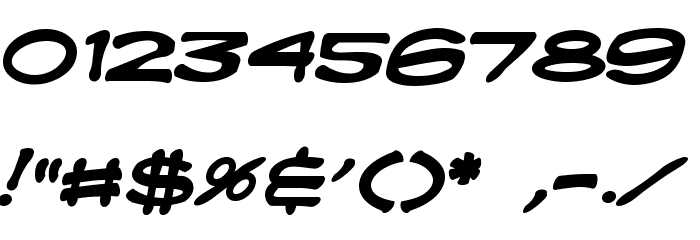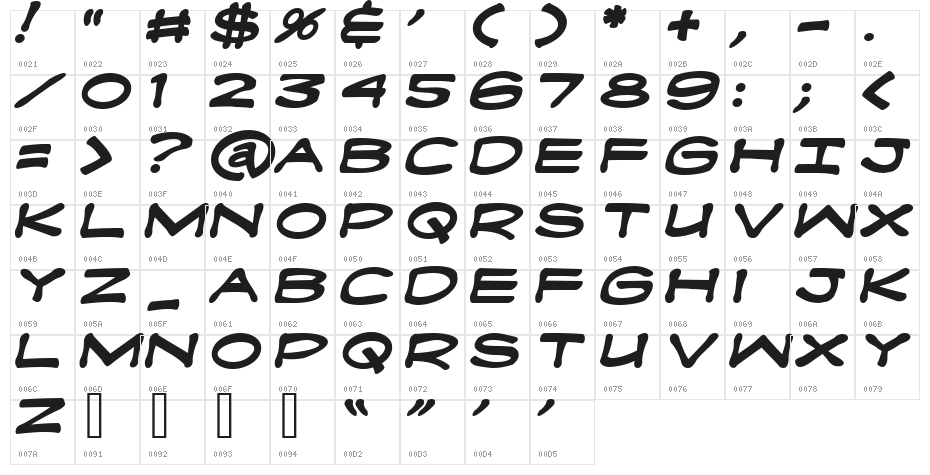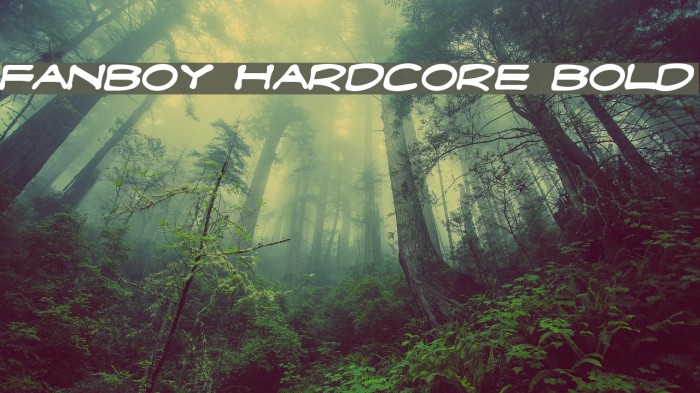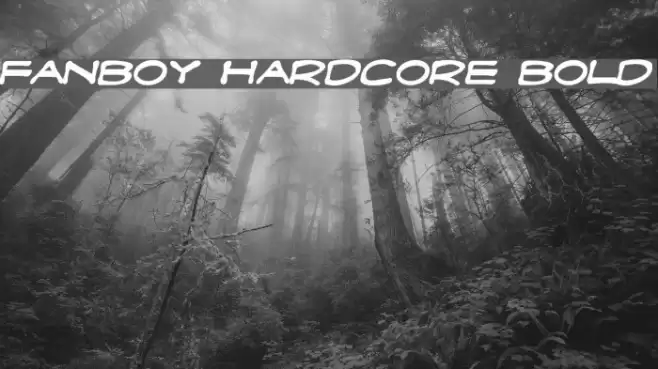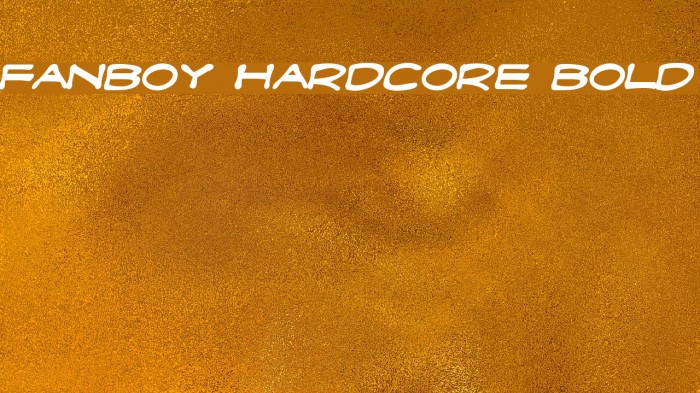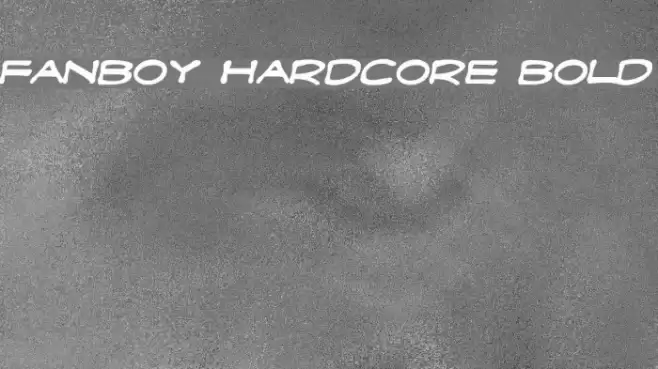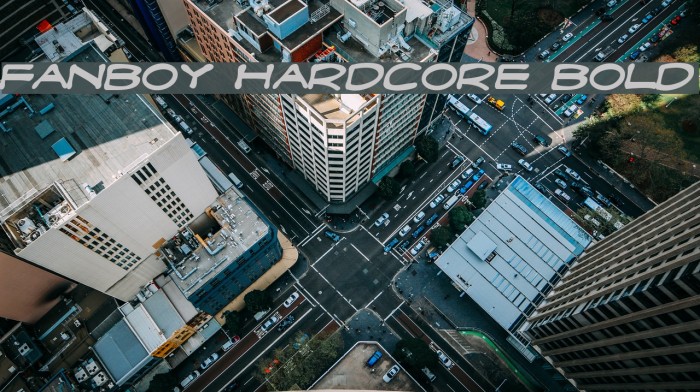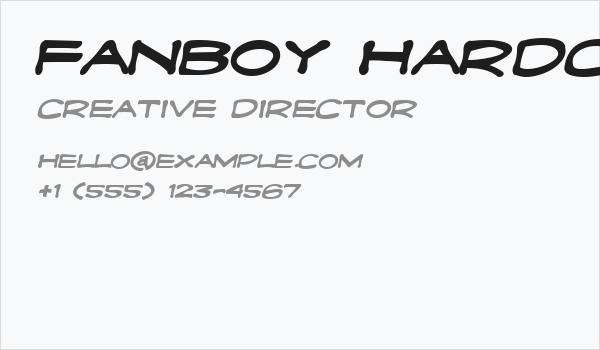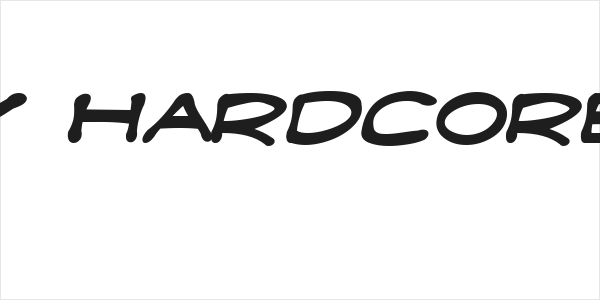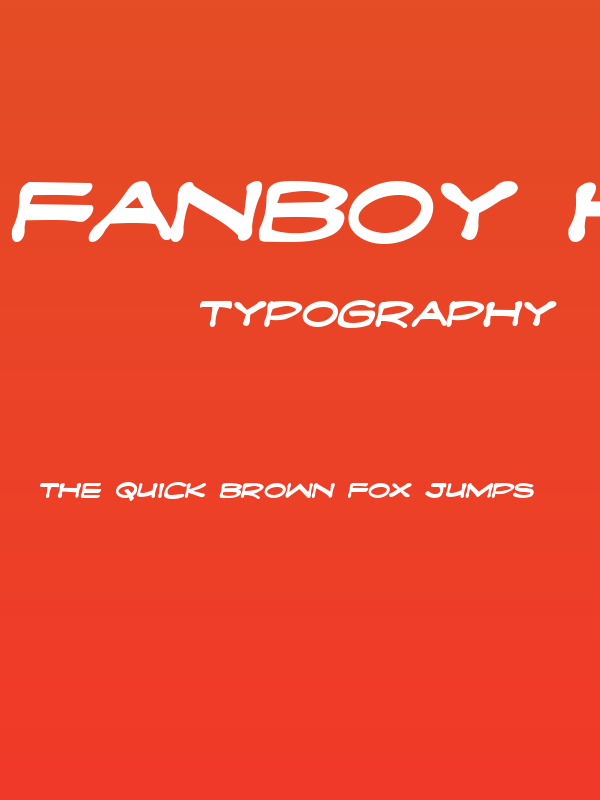
Fanboy Hardcore Bold Font
Fanboy Hardcore Bold Description
This font features a bold and dynamic style with a strong presence. The characters are rounded and slightly slanted, giving them a sense of movement and energy. The strokes are thick and consistent, providing a robust appearance that stands out. The uppercase and lowercase letters maintain a cohesive style, with the lowercase letters mirroring the boldness of the uppercase. The numbers are equally bold, ensuring they are easily readable. Special characters are designed to match the overall aesthetic, making this font versatile for various uses.
| Proposed Projects | Ideal for sports branding, dynamic posters, and energetic logo designs. |